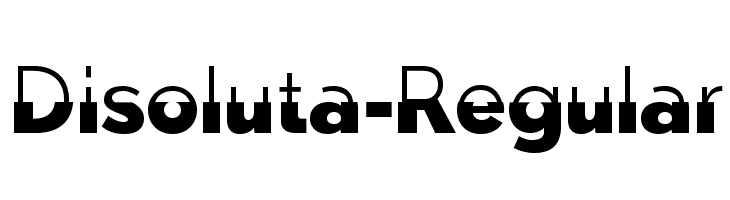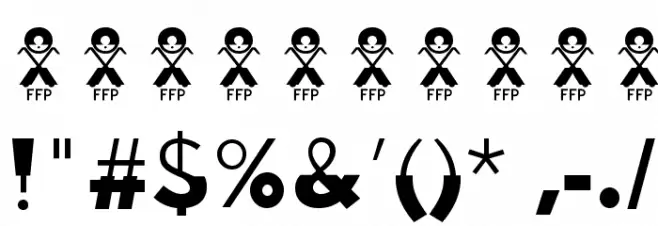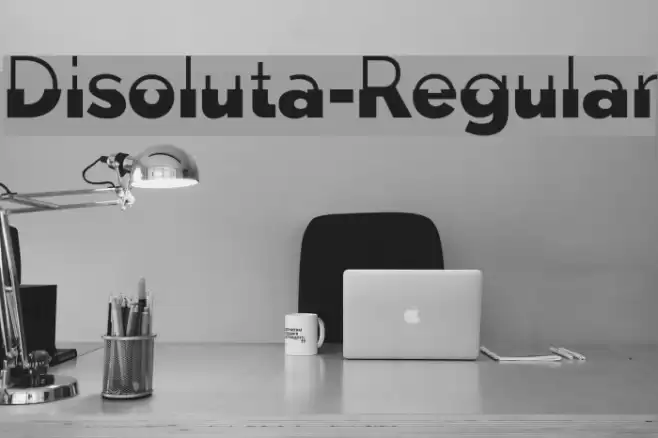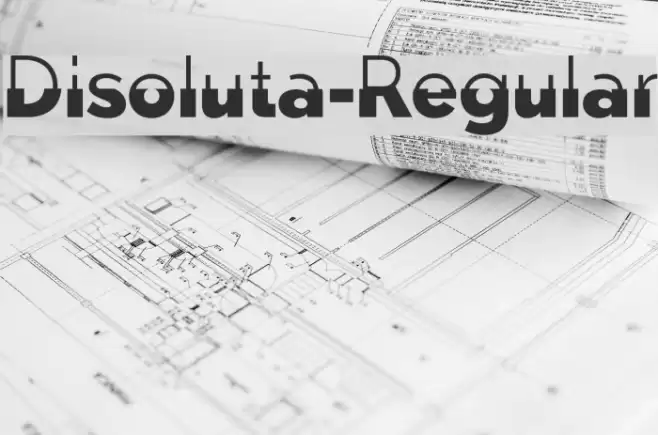
Disoluta-Regular Font
✎ Sans Serif
Disoluta-Regular Description
This font features a bold, geometric design with a modern aesthetic. The characters are constructed with strong, angular lines and a high contrast between thick and thin strokes, giving it a dynamic and striking appearance. The uppercase letters are particularly bold and commanding, while the lowercase letters maintain a consistent style with slightly softer edges. The font includes a full set of uppercase and lowercase letters, numerals, and a variety of special characters. Its unique style is enhanced by the inclusion of playful, decorative elements that add a touch of whimsy to the overall design. The character spacing is tight, contributing to its compact and impactful look.
| Proposed Projects | Ideal for branding, posters, headlines, and any project requiring a strong visual impact. |